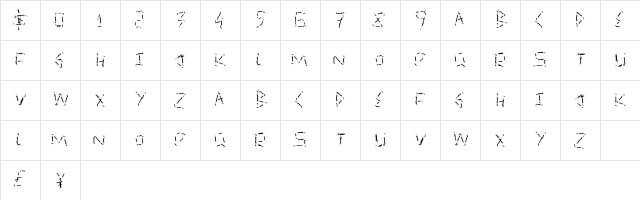
QuickSlash Regular
Design Context for QuickSlash Typeface
QuickSlash is a composed and adaptable typeface that performs quietly and consistently across a wide range of design contexts.